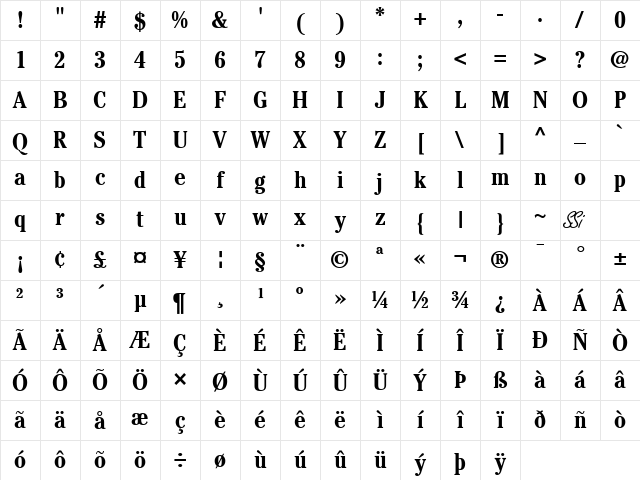
Cheltenham Condensed SSi Bold Condensed Free Font
Cheltenham Condensed SSi Bold Condensed
Style: Bold Condensed
Cheltenham Condensed SSi Family
Cheltenham Condensed SSi Bold Condensed
Design Context for Cheltenham Condensed SSi
Cheltenham Condensed SSi is a composed and adaptable typeface that performs quietly and consistently across a wide range of design contexts. Its bold stroke weight gives it real presence on the page. Its narrow stance lets it pack a punch even in space-constrained designs.